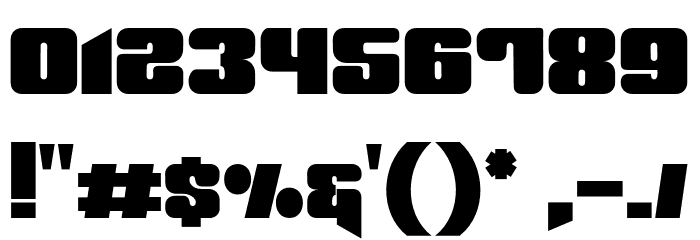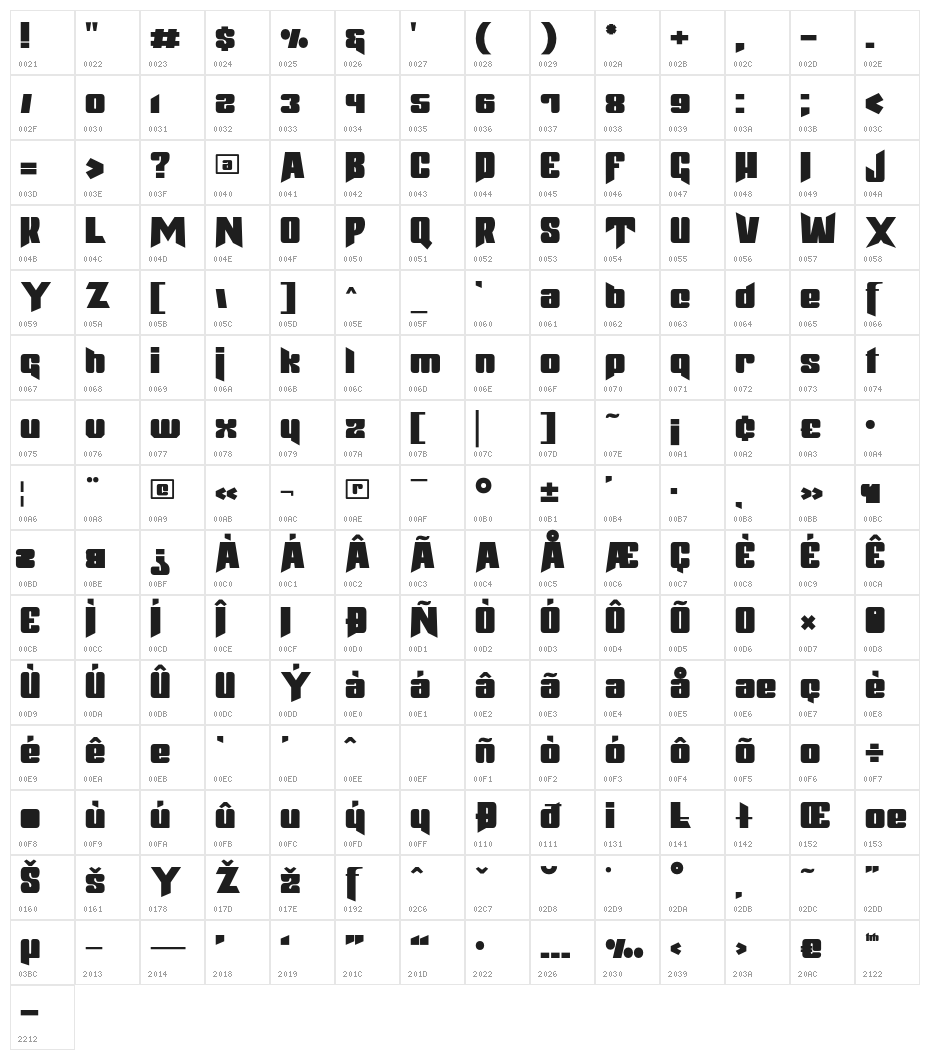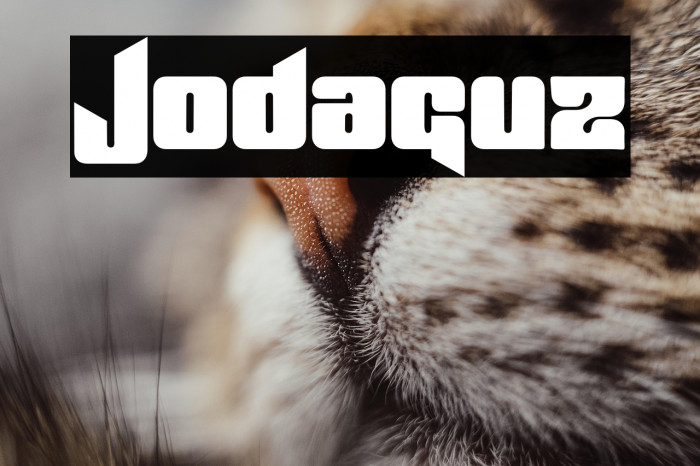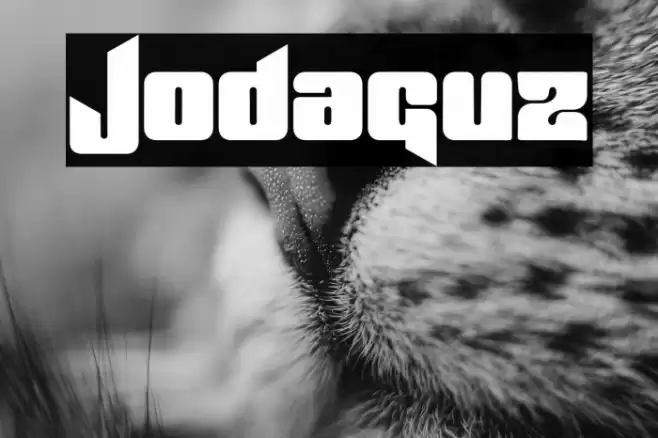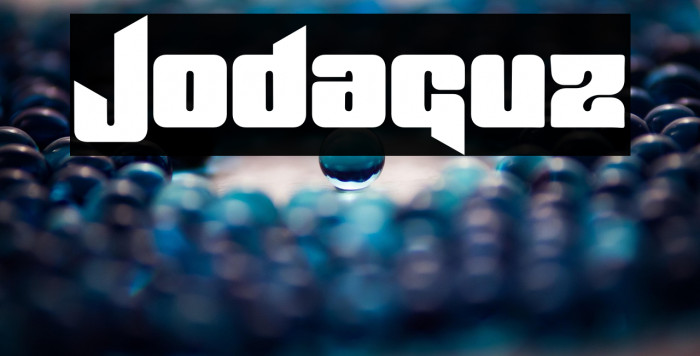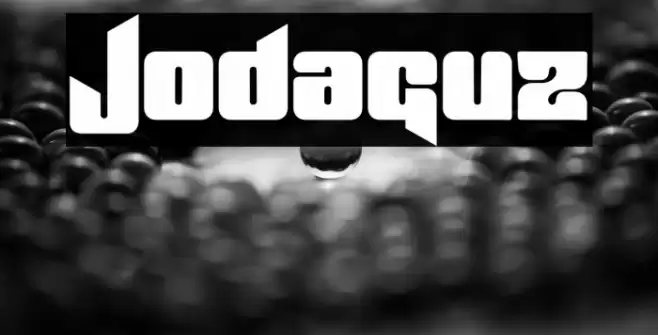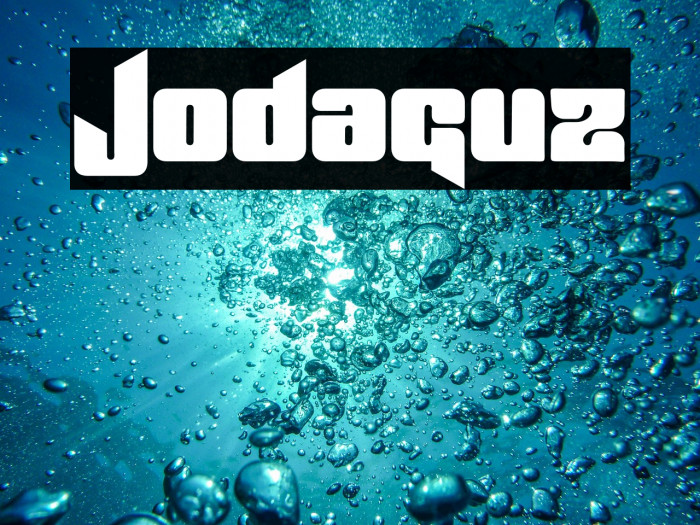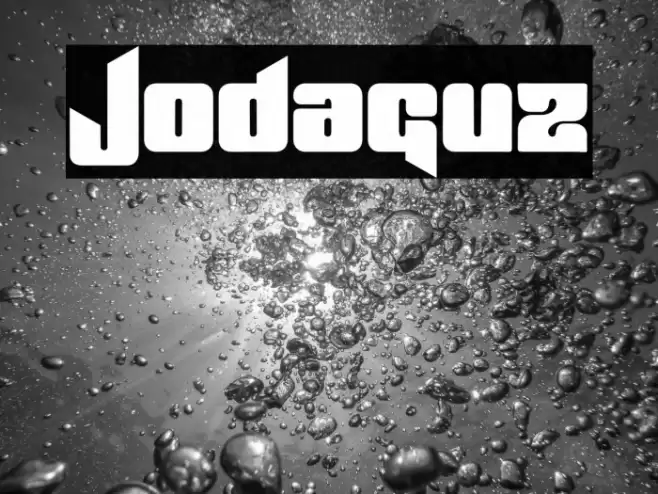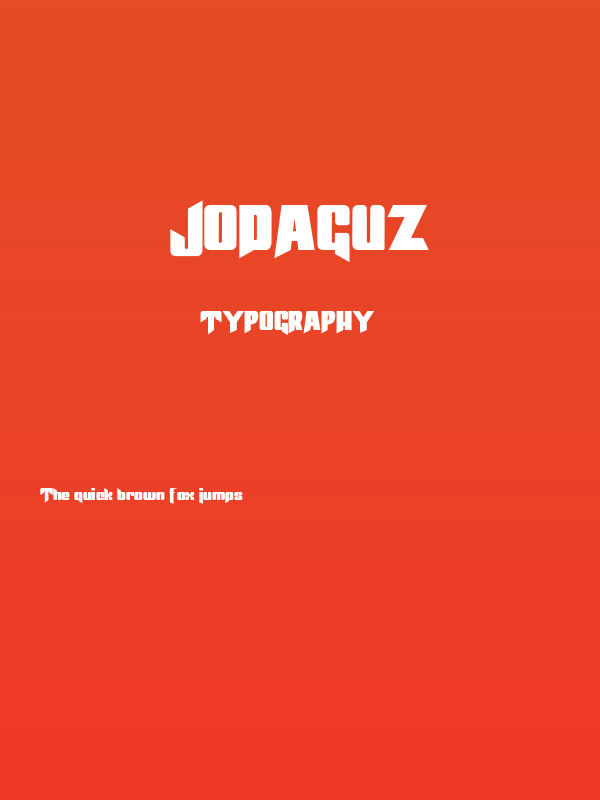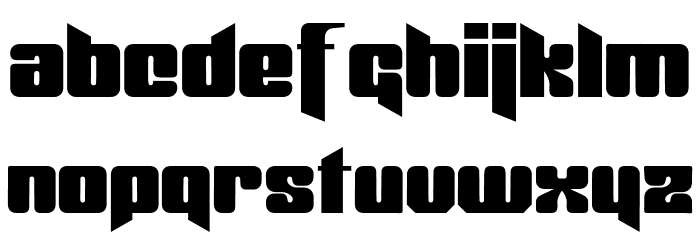
Jodaguz Font
Jodaguz Description
This font features a bold, angular design with sharp edges and a strong geometric influence. The uppercase letters are particularly striking, with a futuristic and aggressive appearance that commands attention. The lowercase letters maintain a consistent style, offering a slightly softer but still robust look. Numbers and special characters are designed to match the boldness of the alphabet, ensuring a cohesive appearance across all characters. The font's unique style makes it ideal for projects that require a modern and edgy aesthetic.
| Proposed Projects | Ideal for branding, posters, video game graphics, and any project needing a modern, edgy look. |